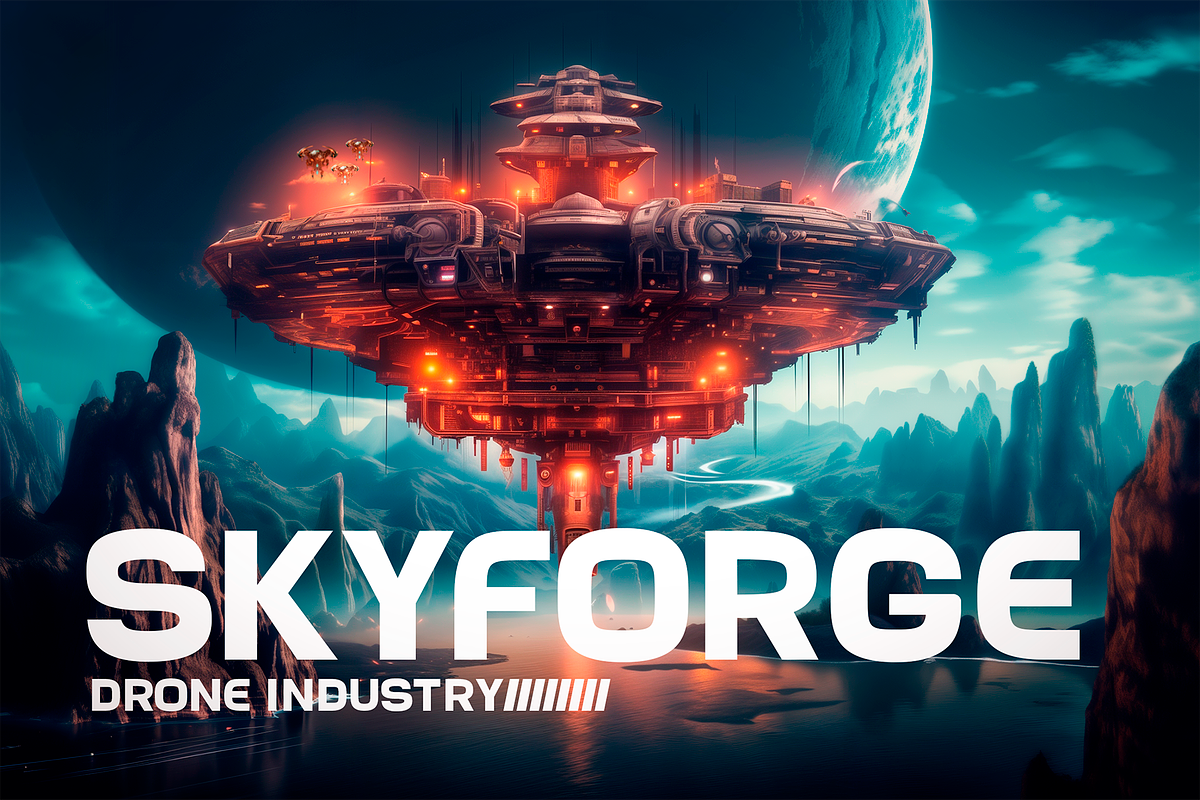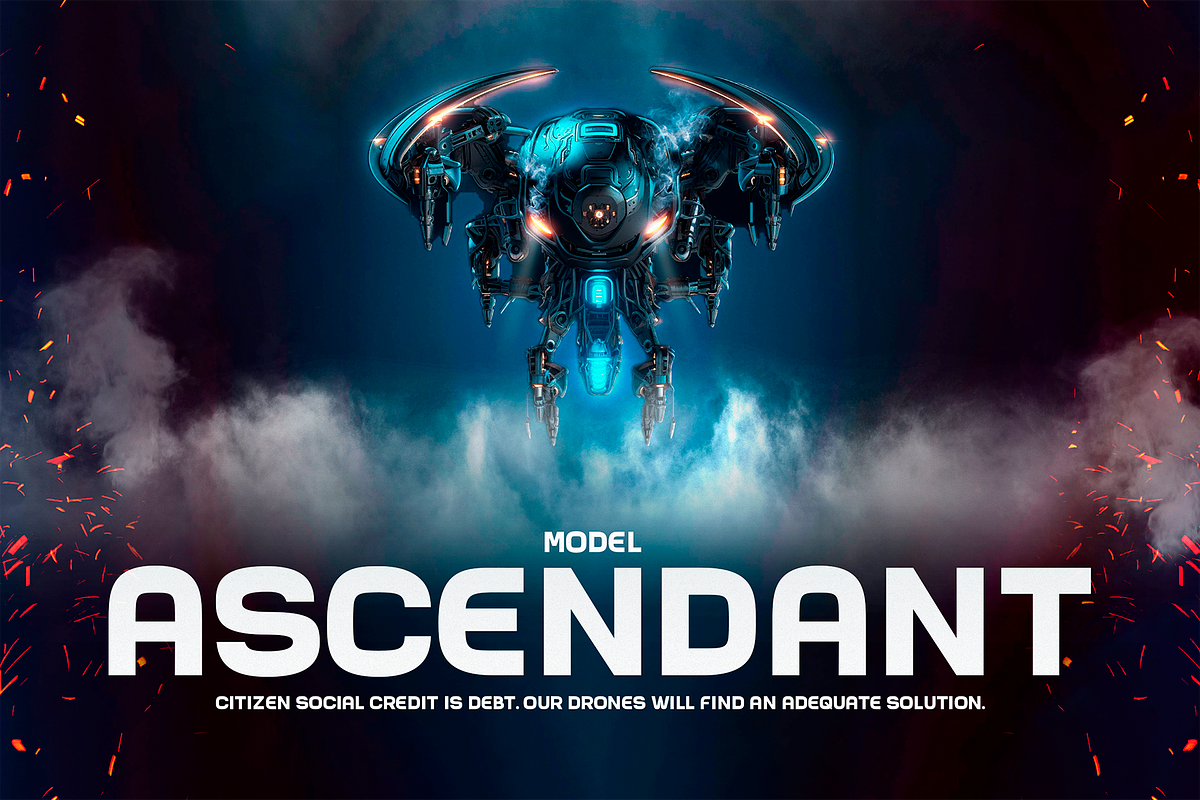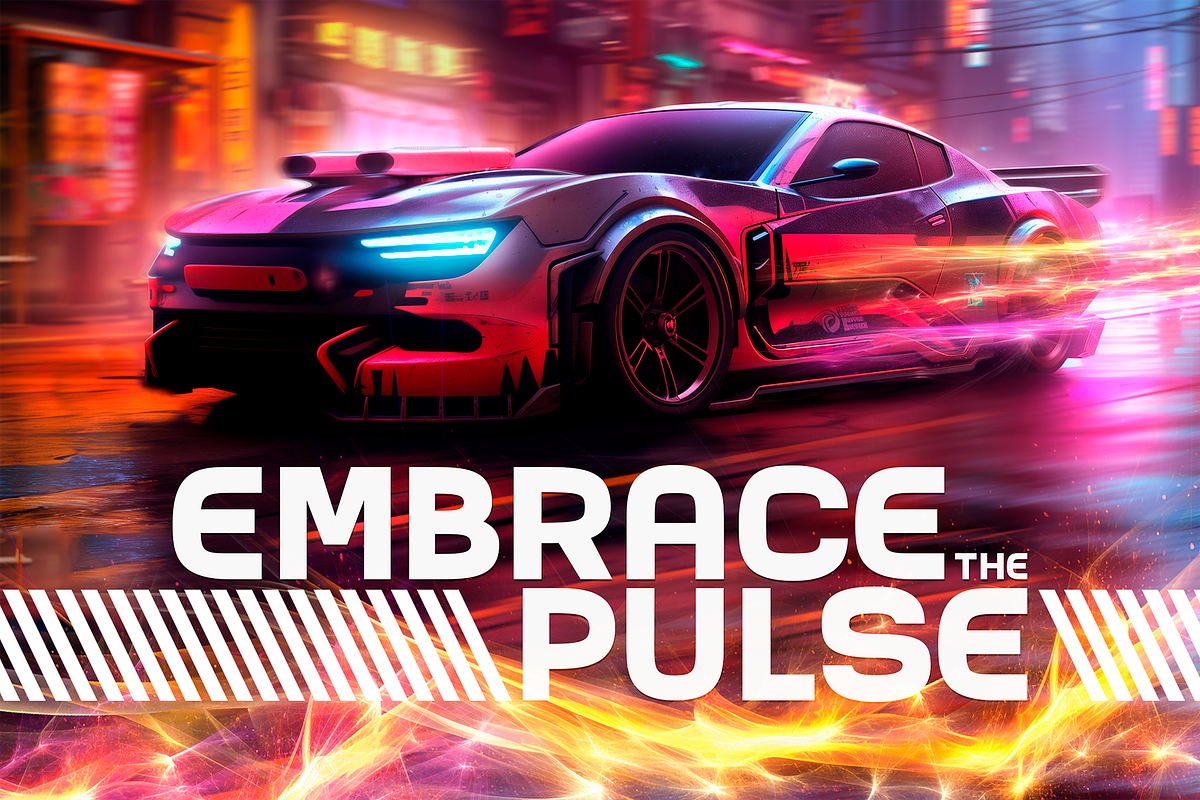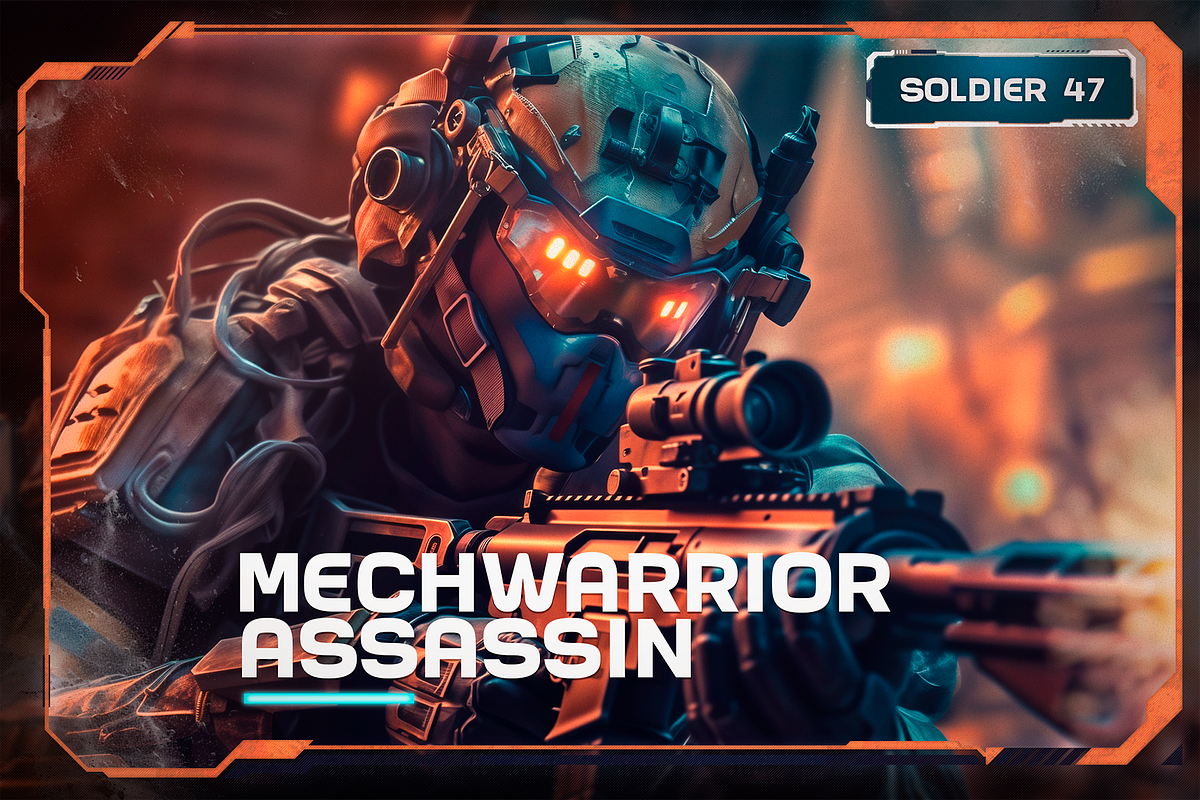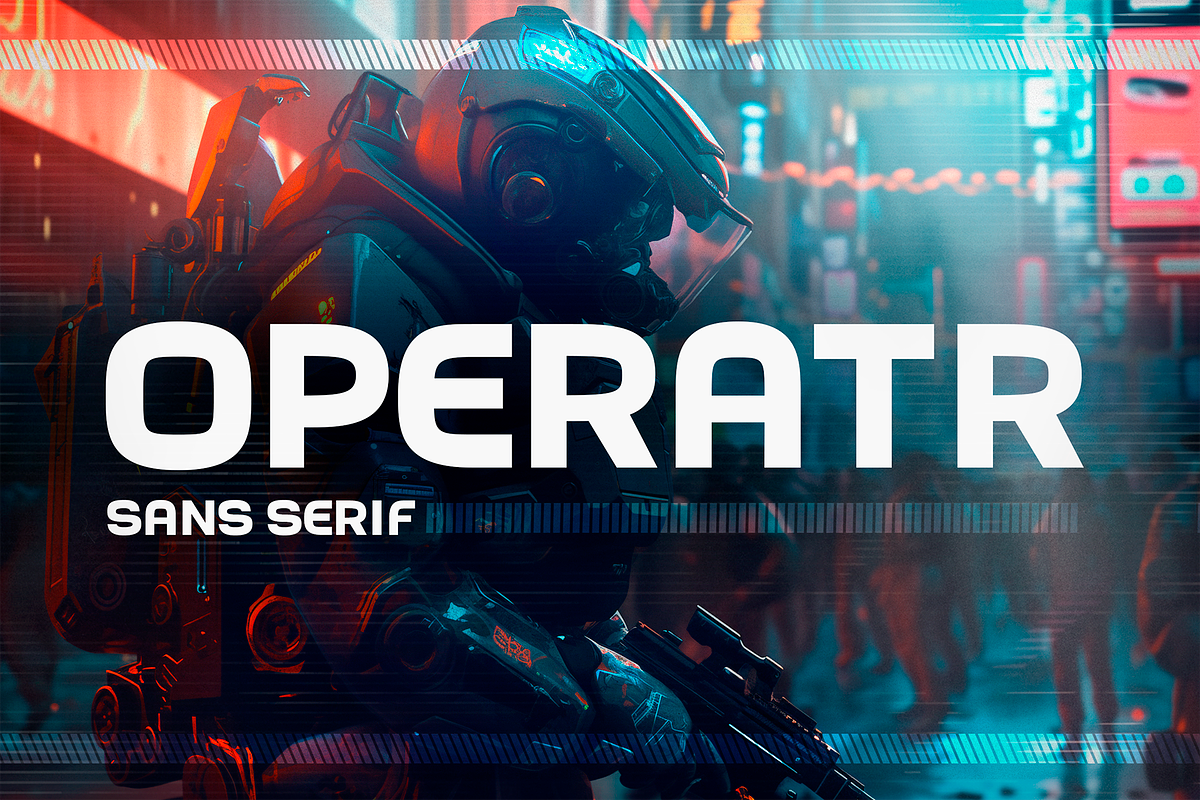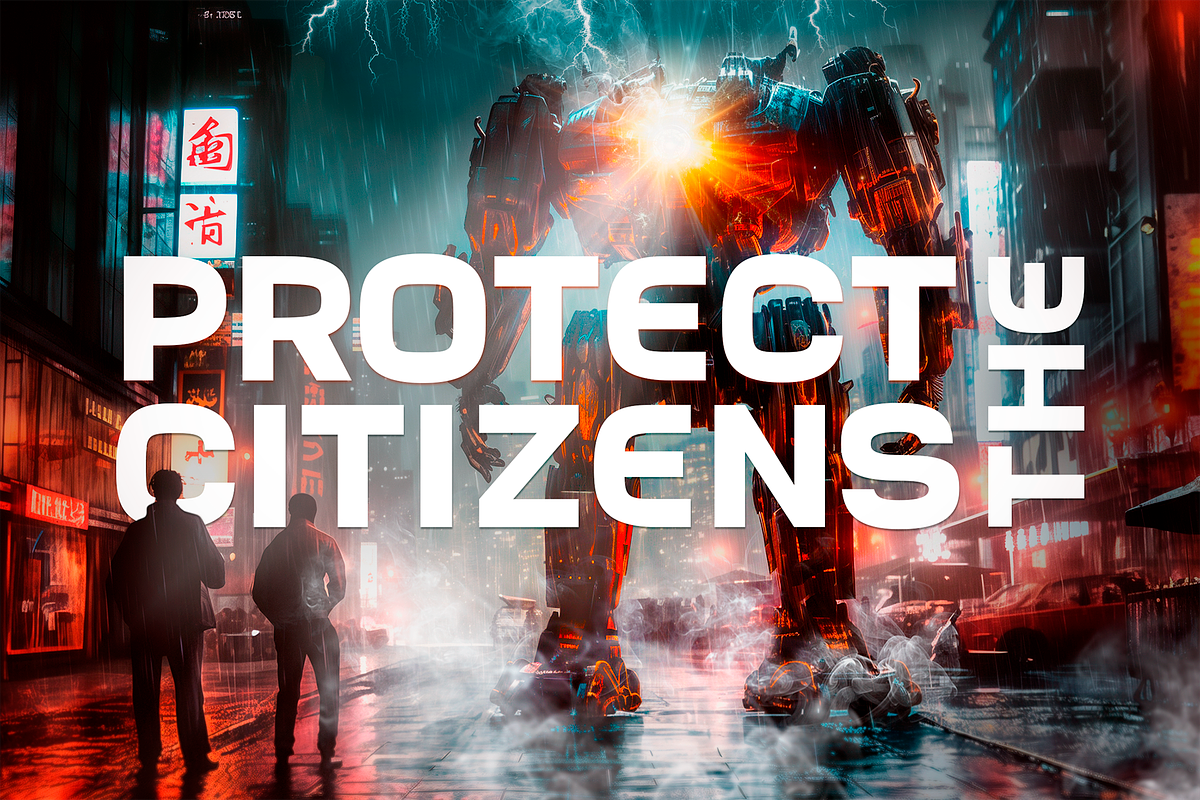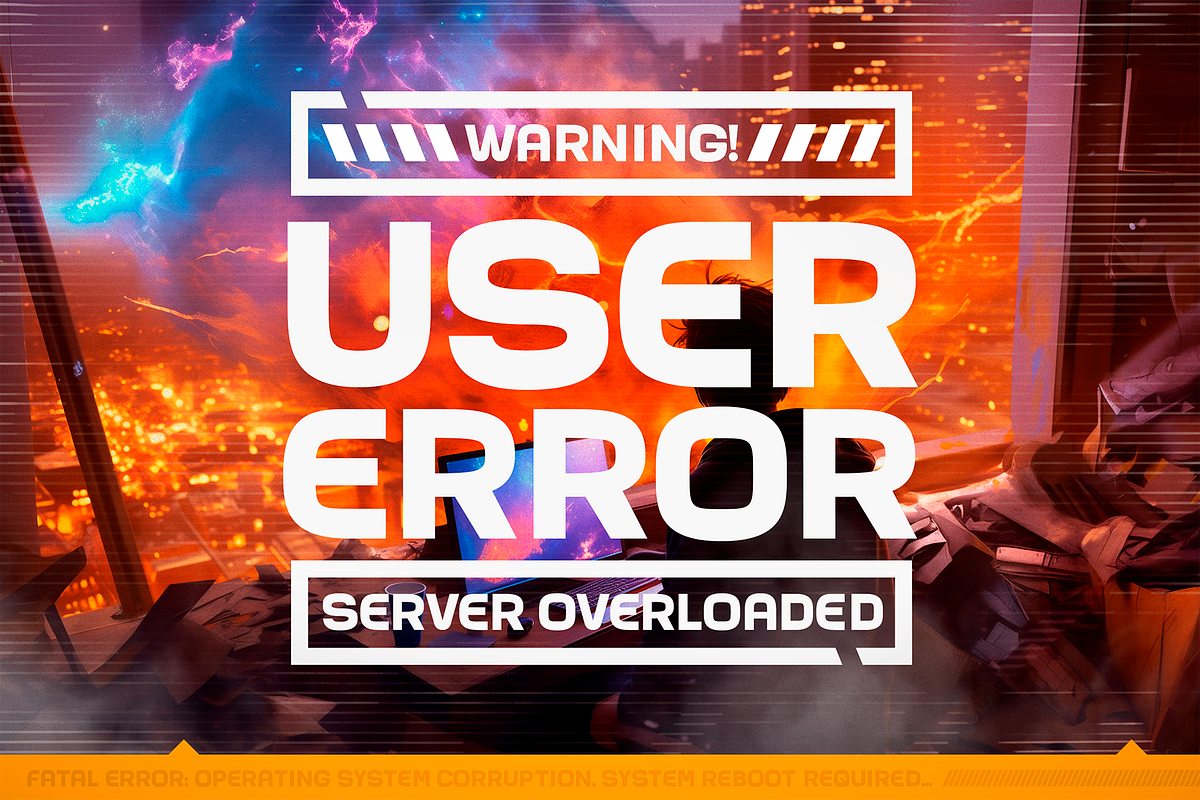
Operatr - Sans Serif
Introducing "Operatr, Bold Font all caps and sturdy sans serif font. Designed specifically for games, titles and headlines, Operatr brings a new level of impact and intensity to your designs.
Great for blending with background images, making it the perfect choice for visually stunning projects. Its adaptability ensures that your text remains legible, even against intricate and vibrant backgrounds, creating a harmonious visual experience.
With Operatr, your designs will possess a strong and sturdy appearance. Its boldness instills a sense of excitement and energy.